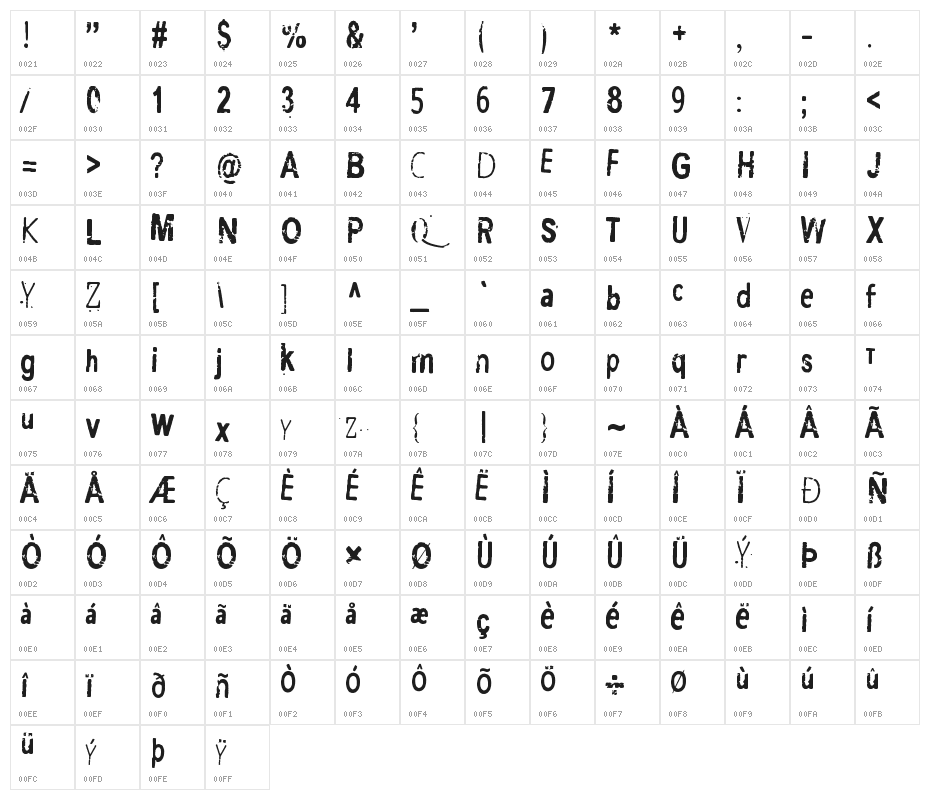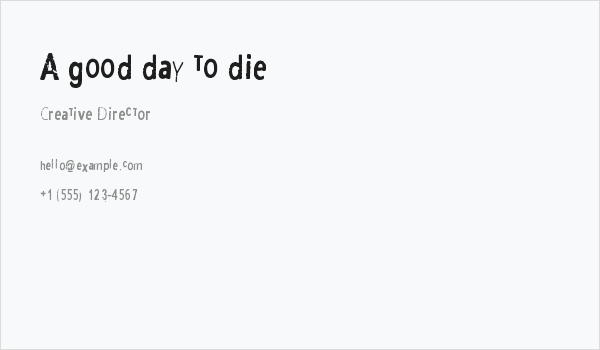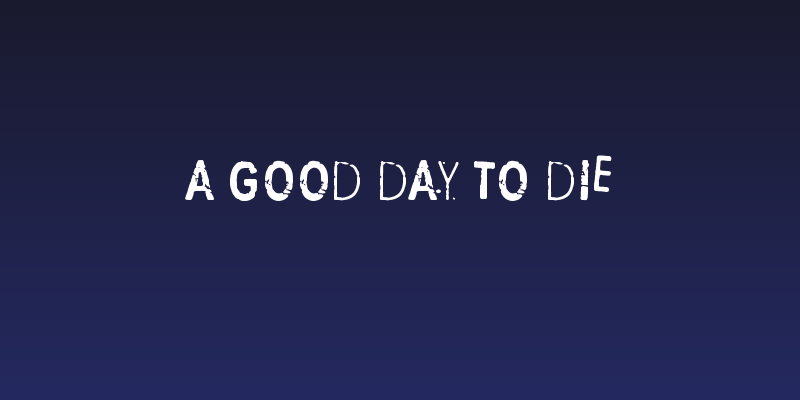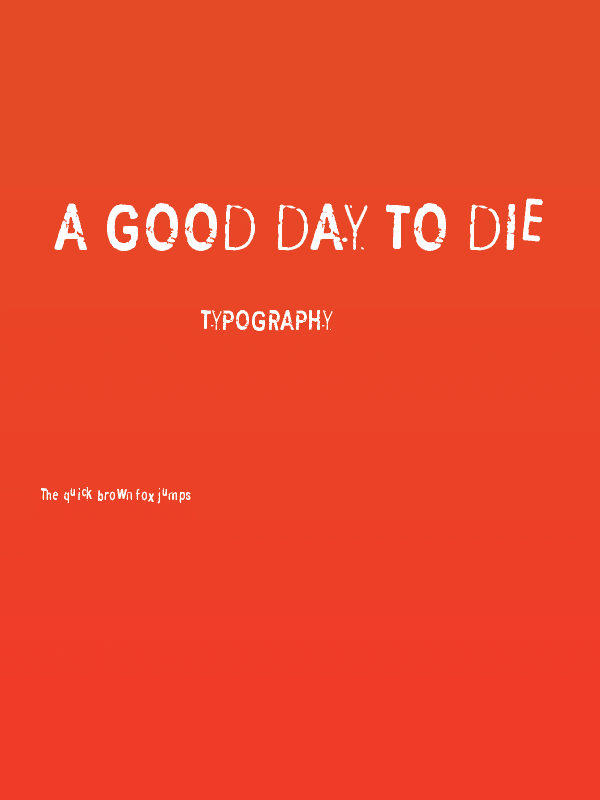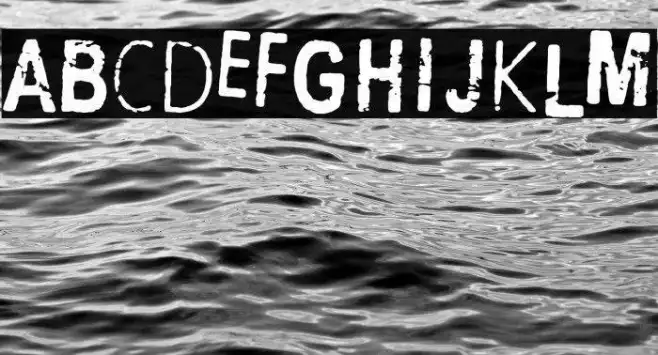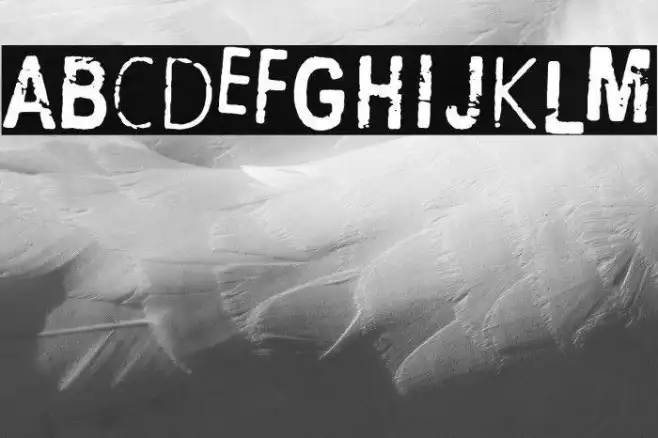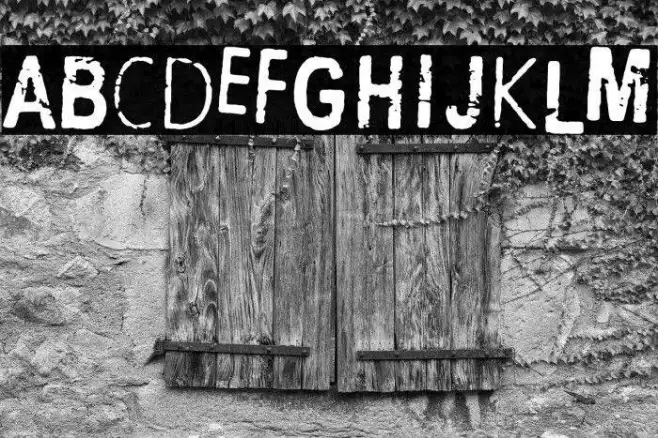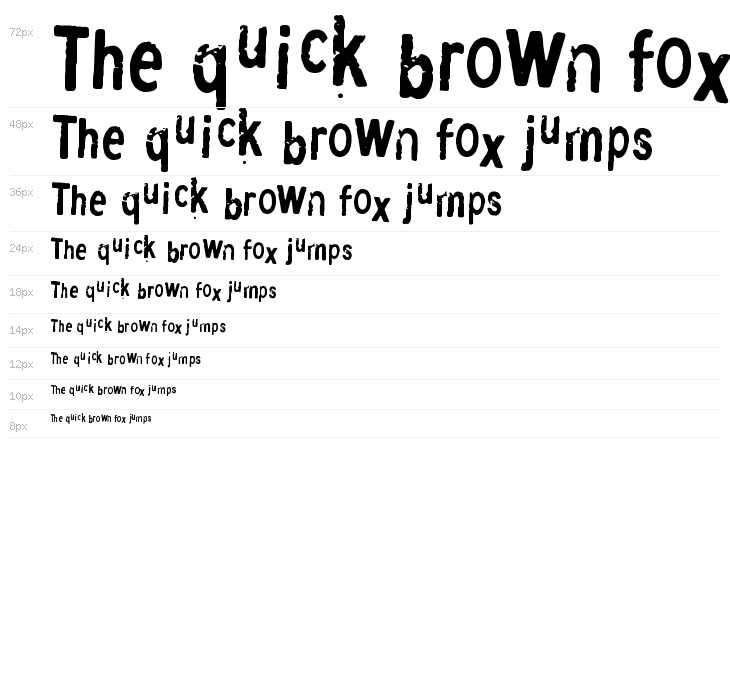
A good day to die Font
A good day to die Description
This font exhibits a distressed, grunge style with a rough, textured appearance that mimics the look of worn or eroded surfaces. The characters are bold and have an uneven, irregular edge, giving them a rugged and raw aesthetic. The uppercase and lowercase letters maintain a consistent style, with some letters appearing more weathered than others. The numbers and special characters follow the same distressed theme, adding to the overall cohesive look. This font is ideal for projects that require a gritty, urban, or vintage feel, making it suitable for posters, album covers, or any design that aims to convey a sense of edginess or rebellion.
| Overall Style | Grunge, Urban, Vintage |
| Proposed Projects | Ideal for posters, album covers, urban-themed designs, and vintage-style projects. |